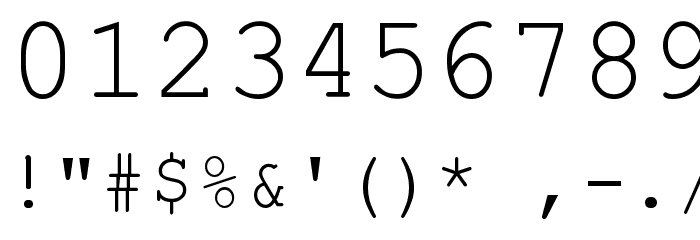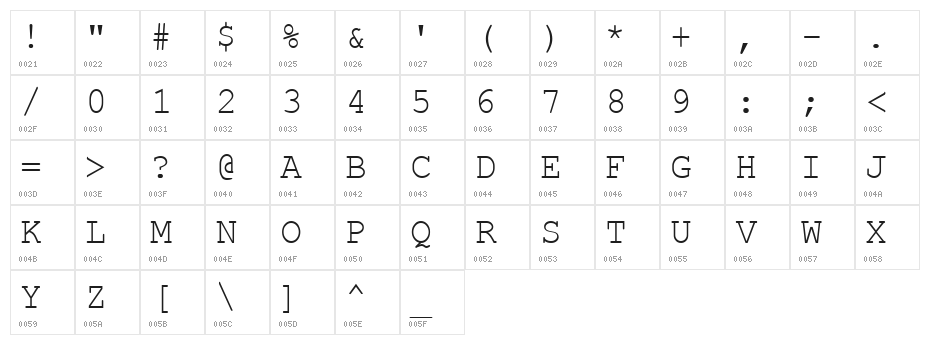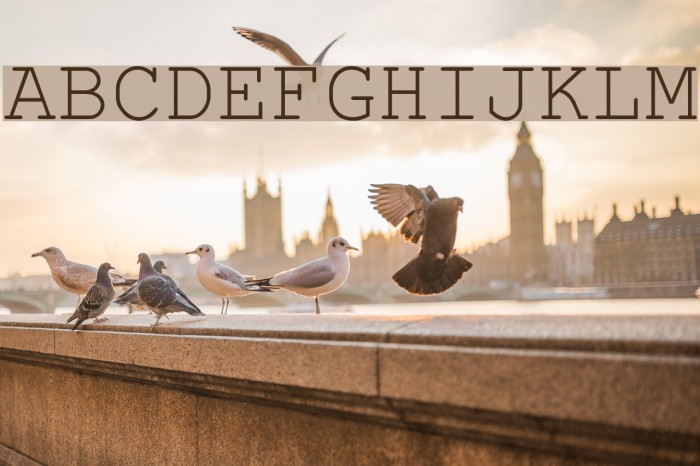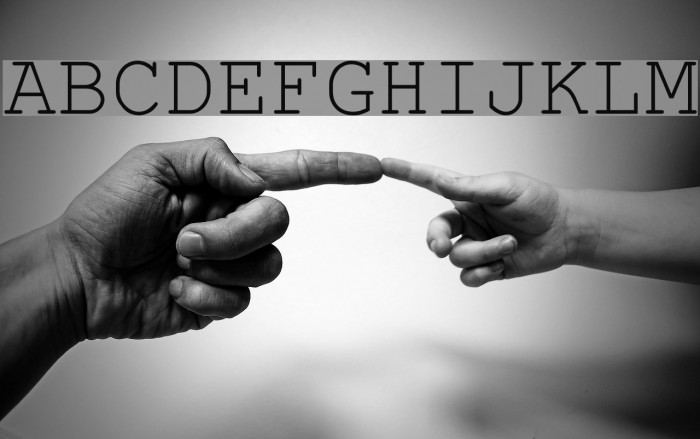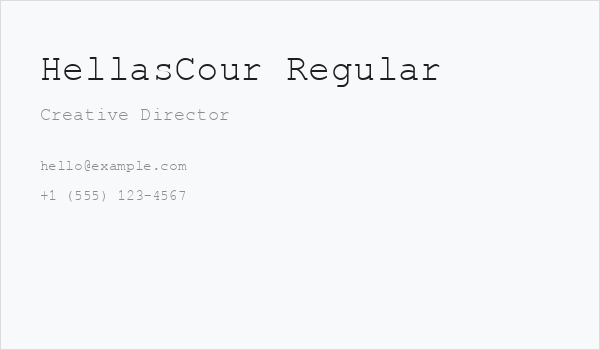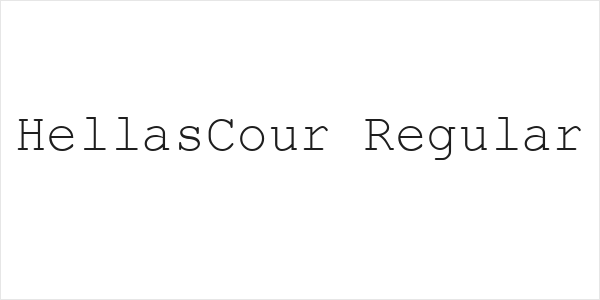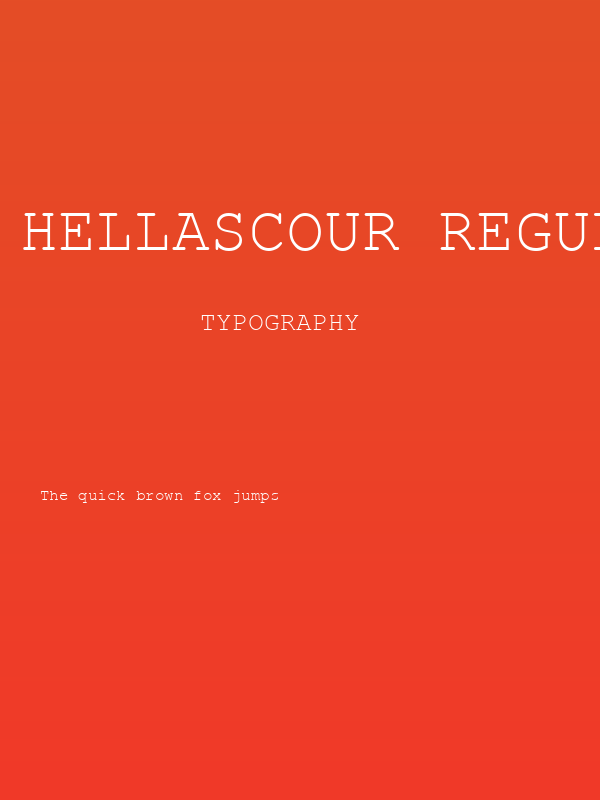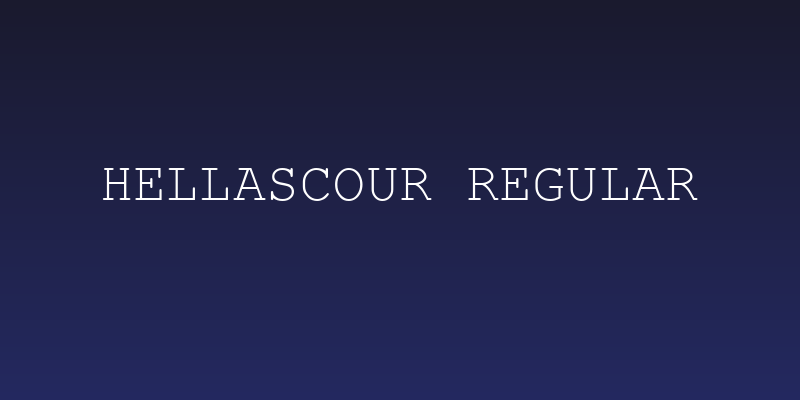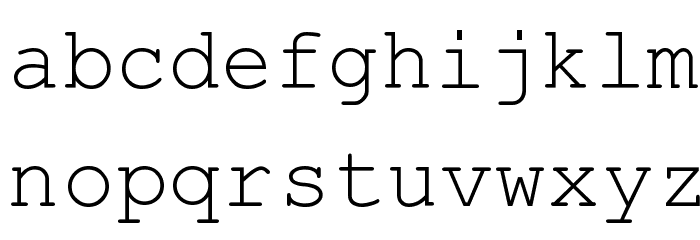
HellasCour Regular Font
HellasCour Regular Description
This typeface features a clean and modern design with a monospaced structure, characterized by consistent spacing between each character. The letters are crafted with a subtle elegance, showcasing a slight contrast in stroke thickness that adds a touch of sophistication. The uppercase letters are bold and prominent, while the lowercase letters maintain a balanced and harmonious appearance. Numbers and special characters are designed with clarity and precision, making them easily readable. The overall style is versatile, suitable for both digital and print applications.
| Use Case | Coding, Technical documentation, Print and digital media |
| Proposed Projects | Ideal for coding environments, technical documentation, and any project requiring clear and uniform text presentation. |